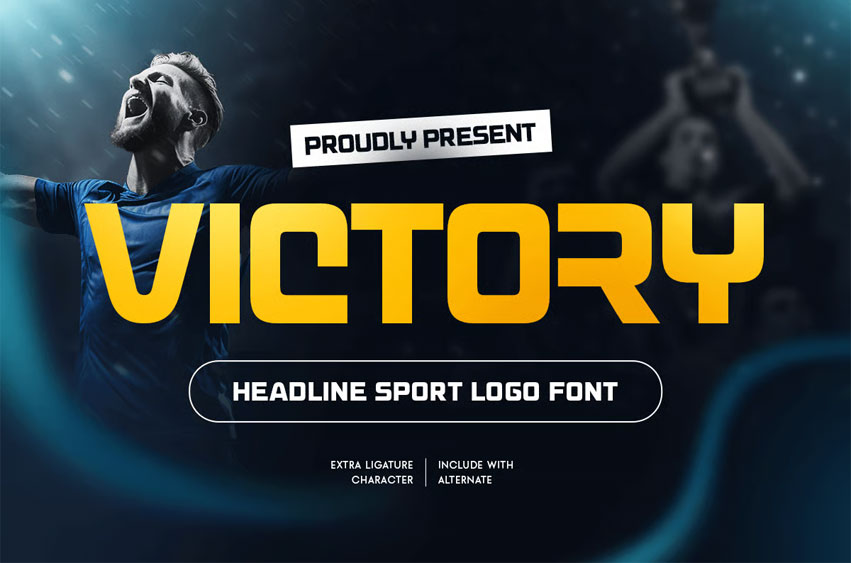
Victory Sports Font
Victory Sports Font is a headline sport logo font built to deliver power, speed, and competitive confidence. With bold letterforms and an athletic presence, this typeface creates a strong visual impact that feels energetic, modern, and ready for the arena. Whether you’re designing for football, basketball, MMA, motorsport, fitness, or esports, VICTORY gives your visuals a championship-ready tone that looks loud, sharp, and unforgettable.
Inspiration Behind VICTORY
VICTORY is inspired by stadium energy, competitive sports culture, and modern athletic branding. The design focuses on bold presence and strong readability—built to look powerful on posters, merchs, scoreboards, and team identity systems. Designed for sports branding and high-impact typography, VICTORY works perfectly for team logos, tournament posters, matchday graphics, poster designs, social media promotions, and bold headline layouts. Its strong structure keeps text readable while amplifying intensity across both print and digital formats.
VICTORY Font Features
• Bold sport letterforms built for headlines and logo design
• Strong impact with clear readability at display sizes
• OpenType features for polished sports typography
• Team logos and athletic brand identities
• Tournament posters, event banners, and match graphics
• Sport event, merch, accessories and sports packaging
• Esports branding, gaming squads, and streaming visuals
• Social media promos and high-energy advertising
Make every headline feel like a win with VICTORY – crafted for sport logos and high-impact champion branding.